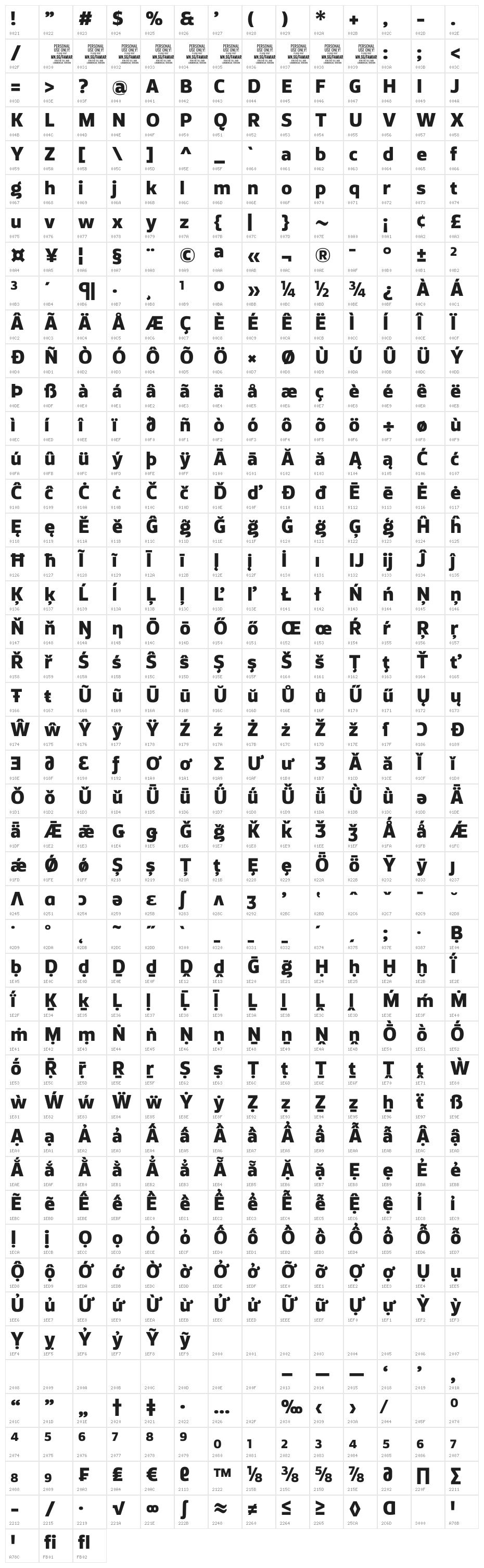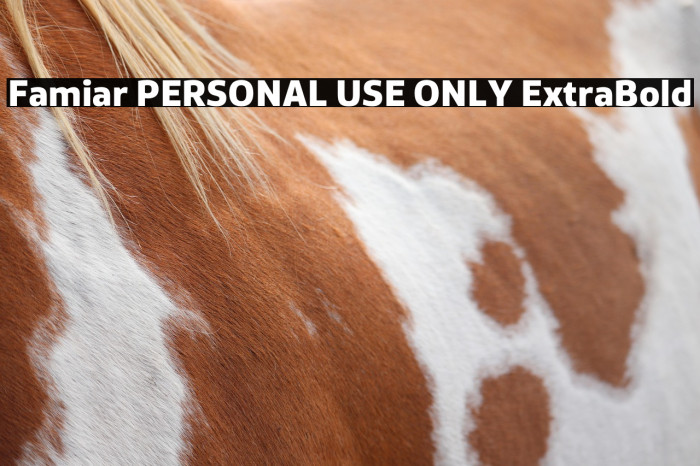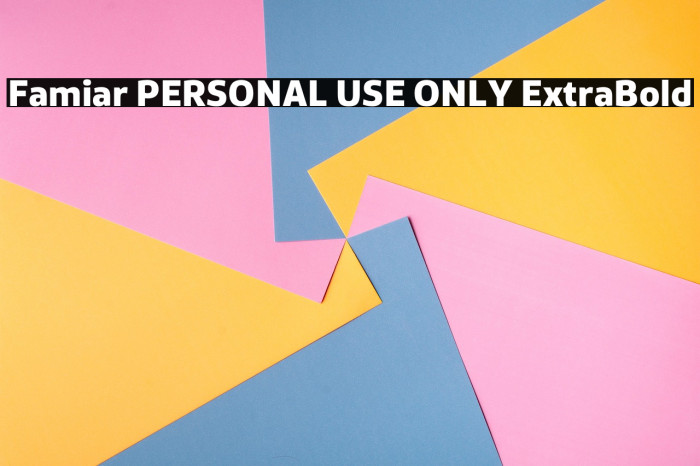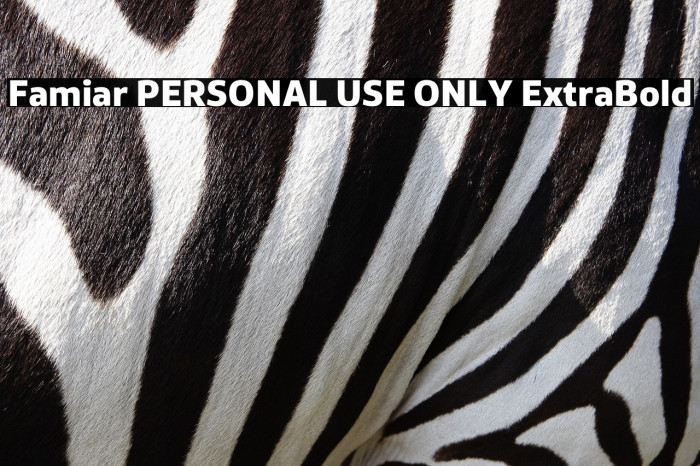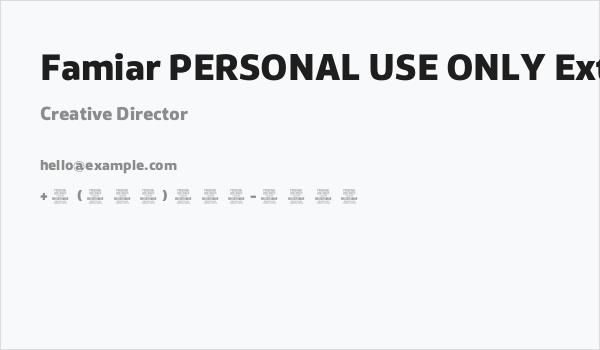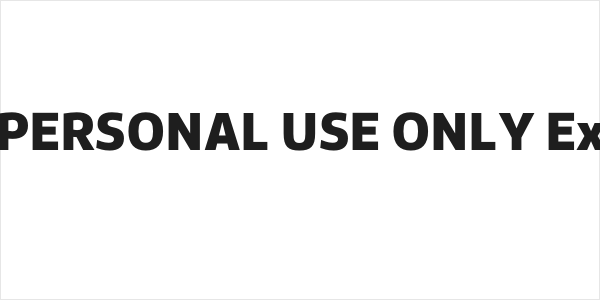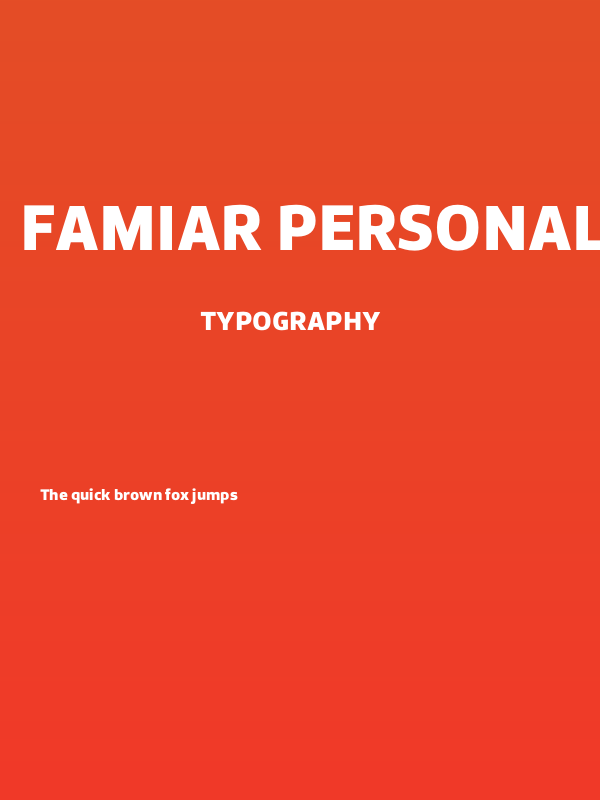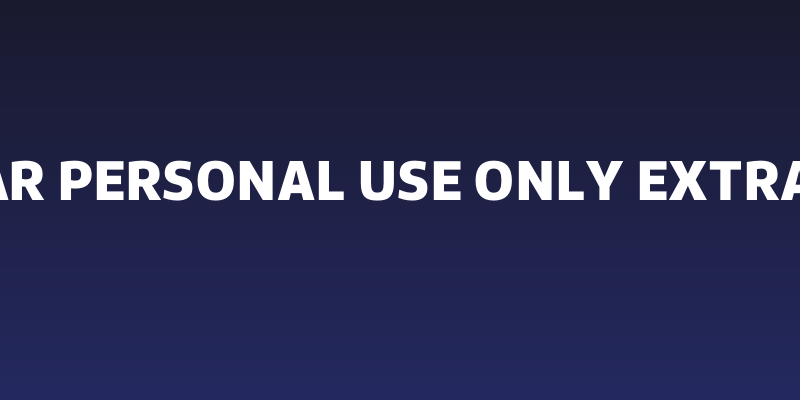
Famiar PERSONAL USE ONLY ExtraBold Font
Famiar PERSONAL USE ONLY ExtraBold Description
This typeface features a bold and assertive design, characterized by thick, uniform strokes that convey strength and stability. The uppercase and lowercase letters are well-balanced, with a consistent weight that ensures readability and impact. The font includes a full set of numerals and a variety of special characters, making it versatile for different applications. Its clean lines and lack of serifs give it a modern and straightforward appearance, suitable for making a strong visual statement.
Proposed ProjectsIdeal for branding, headlines, posters, and any design requiring a bold statement.